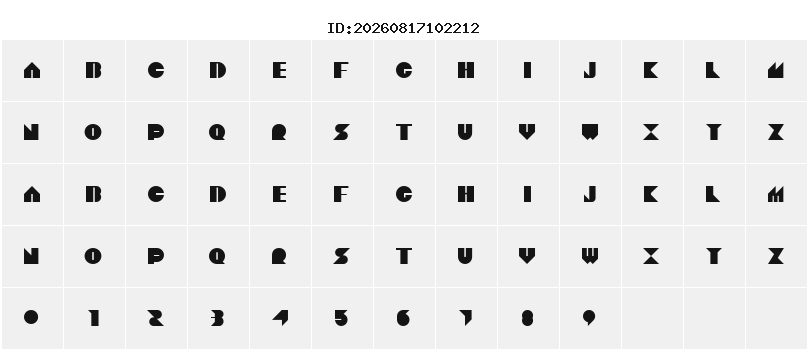
• Font Name: Sonix
• Full Font Name: Sonix
• Designer: CJGong
• Manufacturer: CJGONG
About Sonix.ttf
Sonix.ttf is a modern, elegant sans-serif font designed for ultimate readability and visual harmony. Perfect for branding, headlines, web design, and print materials.